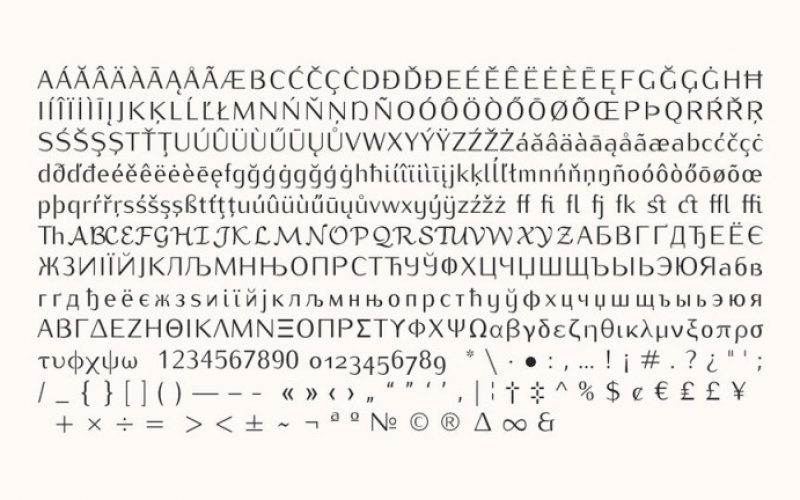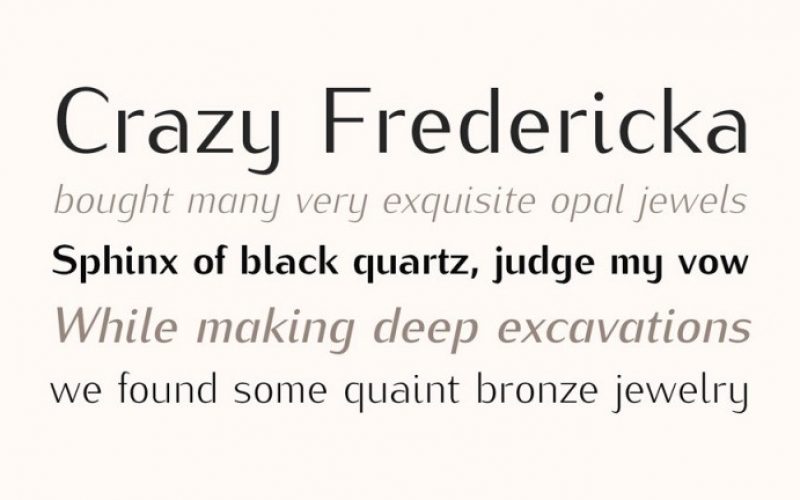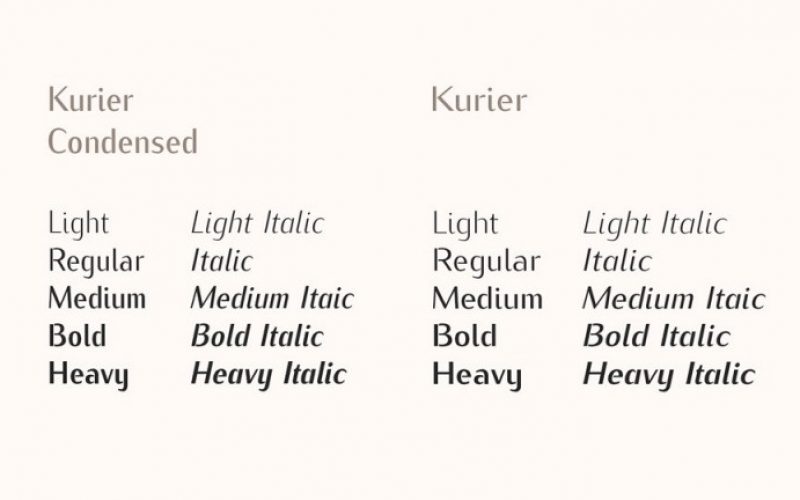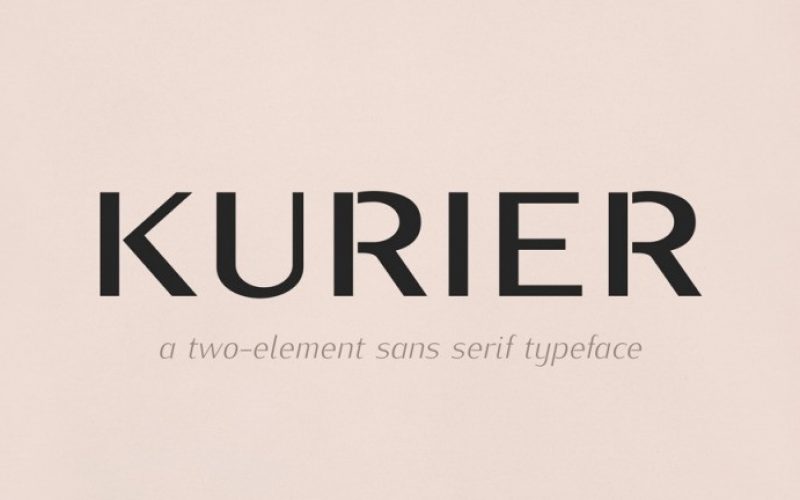
Kurier Sans Serif Font
Kurier is a two-element sans serif typeface designed for a diploma in typeface design at the Warsaw Academy of Fine Arts in 1975.
Kurier was intended for linotype typesetting of newspapers and similar periodicals. The design goals included resistance to technological processes destructive to the letter shapes. As a result, amongst others, the typeface distinguishes itself through intra- and extra-letter white spaces as well as ink traps at cross-sections of some elements constituting the characters.